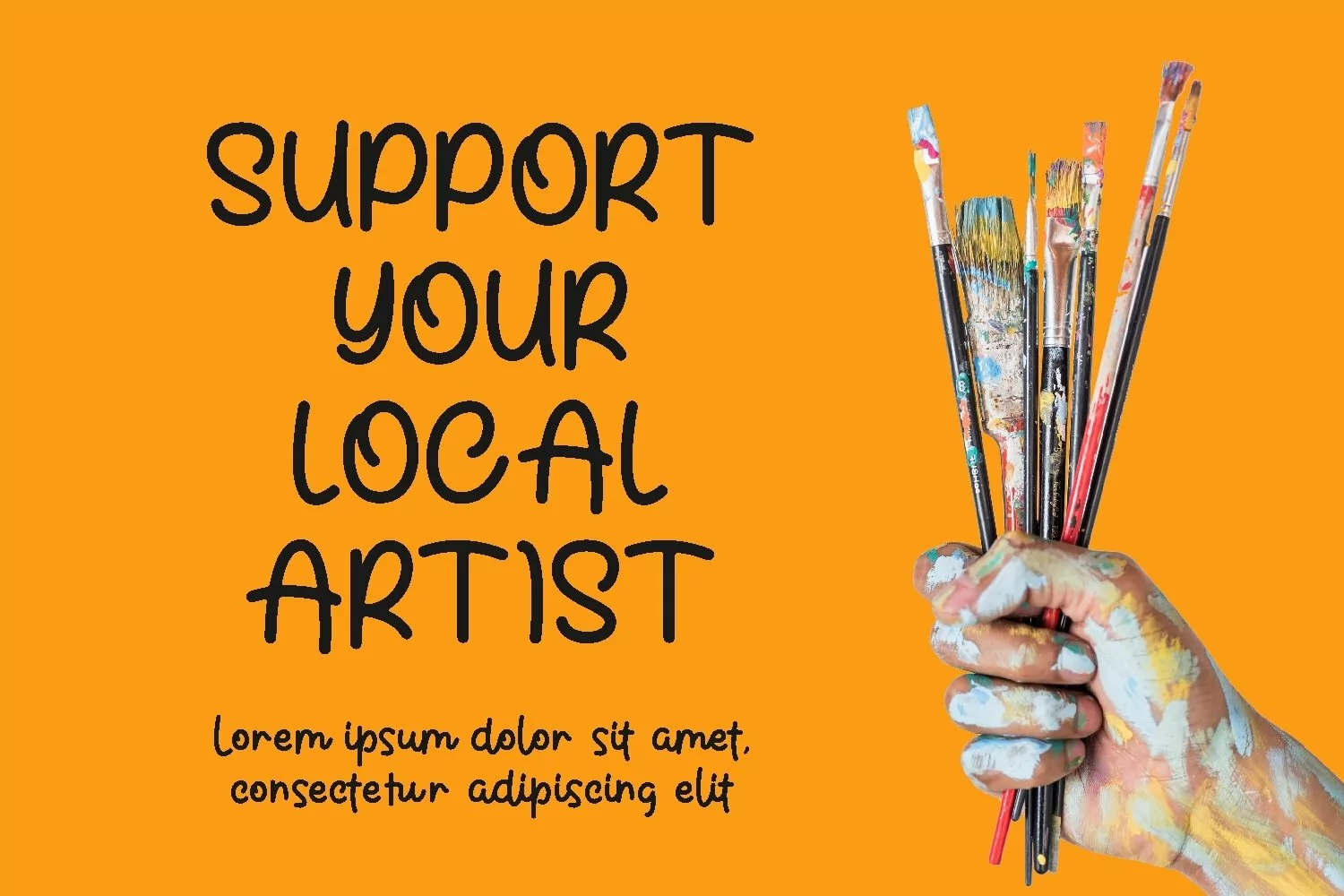
Skolastika is a stylish beauty display typeface with casual themes. It matches applies in some designs such as the logotype, brand, packaging, quotes, poster, t-shirt, cover book, birthday invitation and more custom design. The features uppercase, lowercase, numeral, punctuation & symbol, multilingual support, PUA encoded (fully accessible without additional design software).
Skolastika